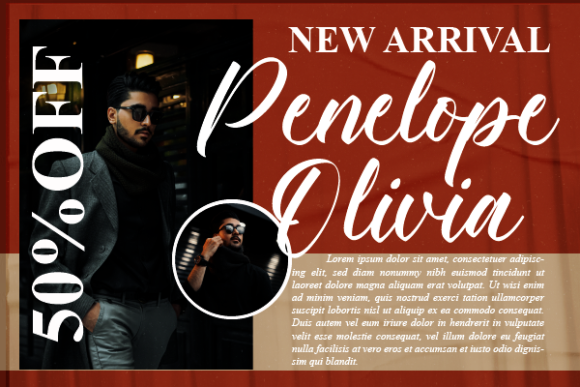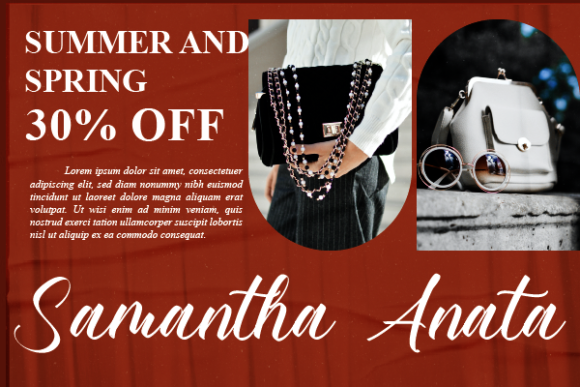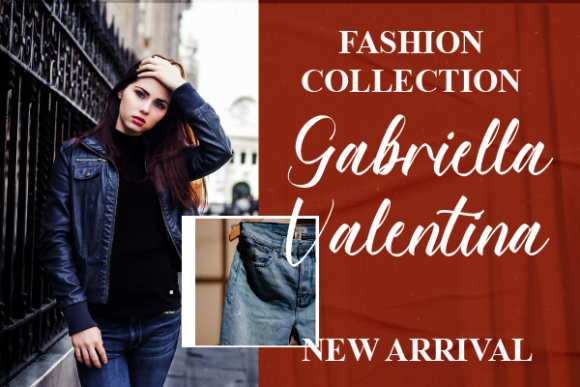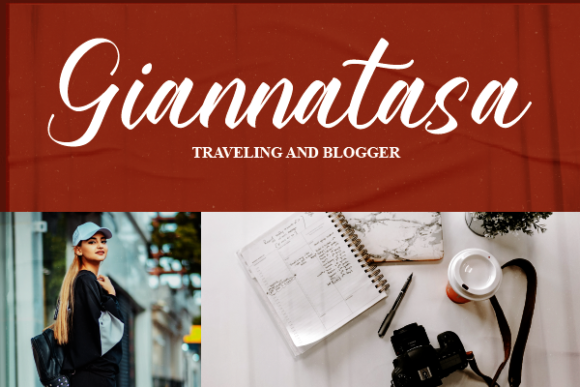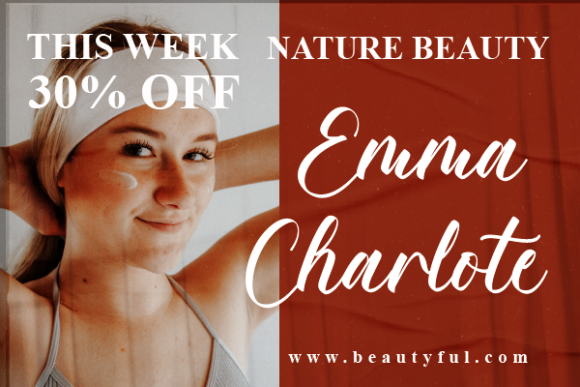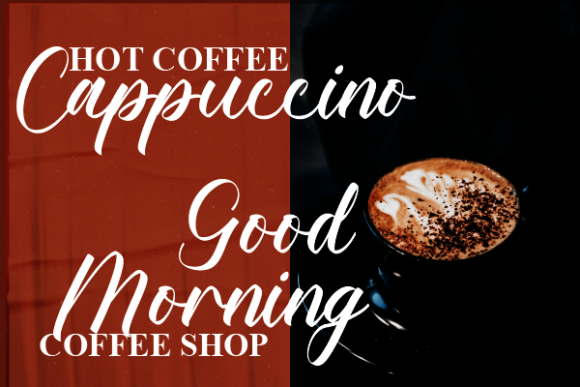
Introduction to Meadow Cameron Font
Meadow Cameron is a dainty handwritten font.
Its distinct and well rounded letters make this font a masterpiece Fall in love with its incredibly versatile style and use it to create spectacular designs.
Key Features of Meadow Cameron Font
Why Choose Meadow Cameron Font?
Meadow Cameron Font offers exceptional quality and versatility, making it a valuable addition to your design toolkit. Whether you’re creating for personal projects or commercial use, Meadow Cameron Font delivers professional results.